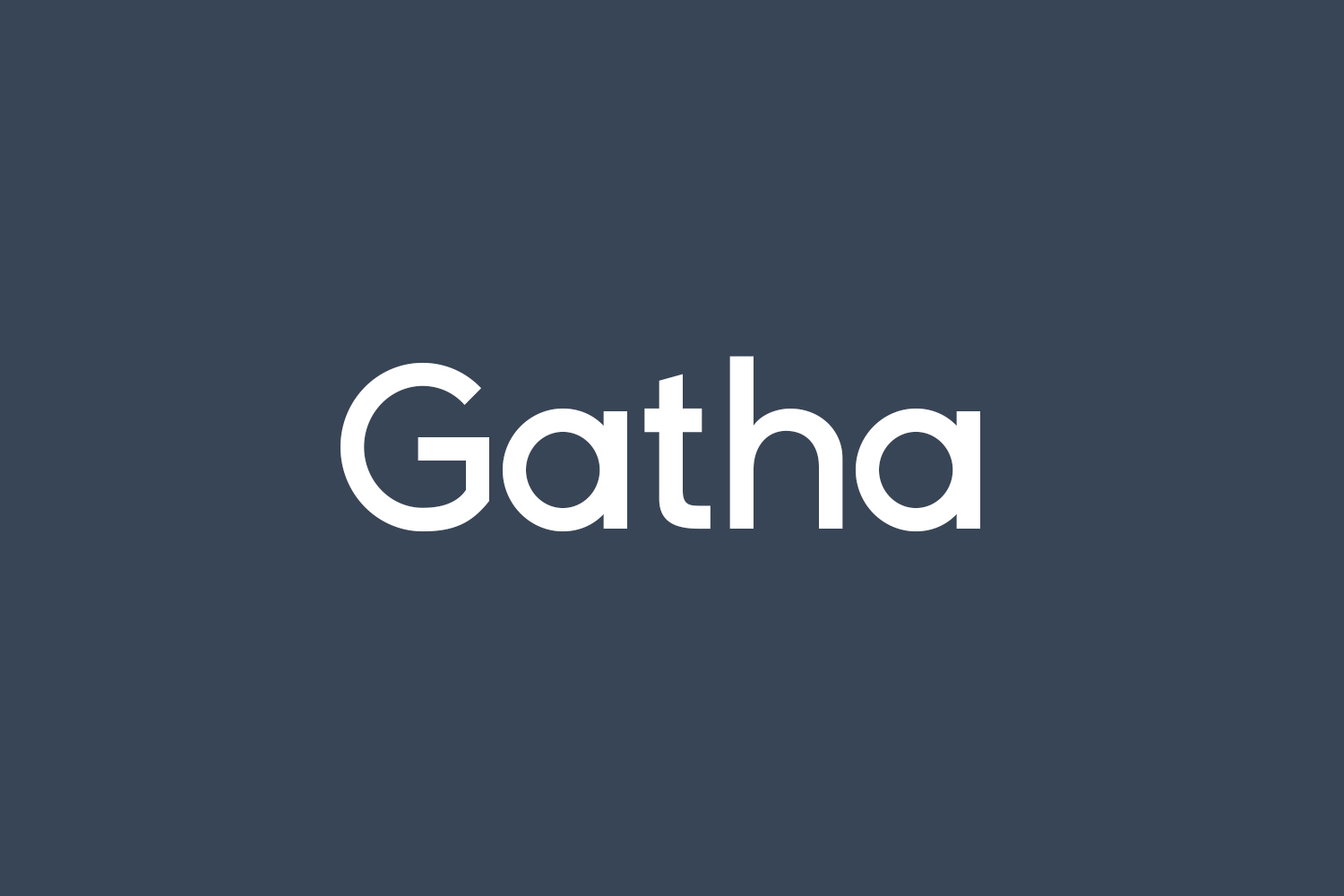
Experience the versatility and elegance of Zt Gatha Free Font, a sleek sans-serif font designed for modern projects. With its contemporary aesthetic, sharp edges, and clean lines, it exudes sophistication. Whether for print or digital, its high legibility ensures seamless integration into any design. Download the font for free if you need it for personal or commercial use.
Designed by Zelow Type